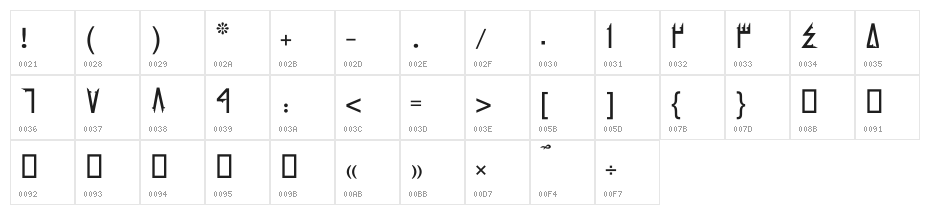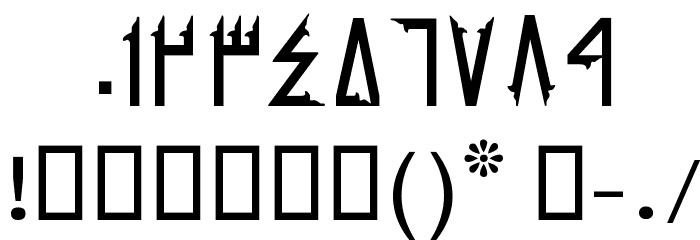
Tazhib II Font
Tazhib II Description
This font features a highly decorative and intricate design, reminiscent of traditional Middle Eastern art and calligraphy. The characters are adorned with elaborate flourishes and embellishments, giving them a unique and artistic appearance. The strokes are bold and angular, with a consistent thickness throughout, creating a striking visual impact. This font is ideal for projects that require a touch of elegance and cultural richness, making it suitable for invitations, posters, and artistic displays. Its distinct style sets it apart from more conventional fonts, offering a creative and sophisticated option for designers.
| Use Case | Headlines, Artistic displays, Invitations |
| Proposed Projects | Ideal for invitations, posters, artistic displays, and projects requiring cultural elegance. |